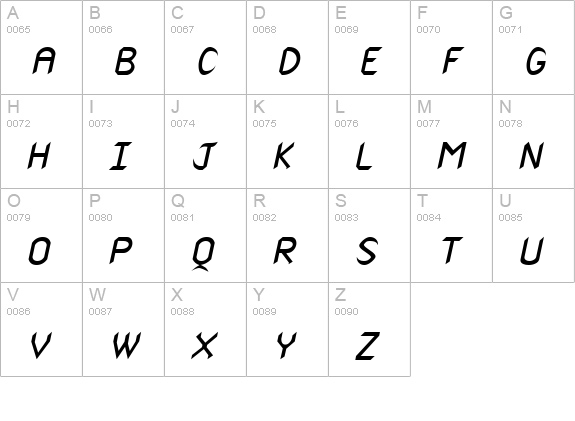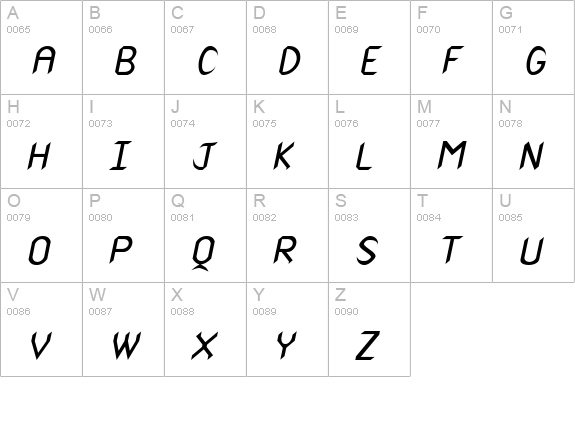
Spike Italic is a distinctive, italic variant in the Spike typeface family \xE2\x80\x94 well suited to design and typography projects.
Introducing Spike Italic, a dynamic and modern font that exudes both elegance and versatility. With its sleek and curvaceous letterforms, Spike Italic adds a touch of sophistication to any design project. Whether you're creating a stylish logo, designing an eye-catching flyer, or crafting a professional website, this font is sure to make a lasting impression. What sets Spike Italic apart is not just its stunning aesthetic, but also its incredible versatility. From bold headlines to delicate body text, this font effortlessly adapts to various design needs, making it a valuable tool for graphic designers, web developers, and creative professionals alike. But that's not all – Spike Italic is also free! Yes, you read that right. This font is freely available to download at FontsMarket.com, allowing you to unleash your creativity without breaking the bank. With just a few clicks, you can have this remarkable font at your fingertips, ready to elevate your designs to new heights. So, why wait? Embrace the boldness and charm of Spike Italic and let your imagination run wild. With its timeless appeal and the convenience of being freely accessible at FontsMarket.com, this font is a must-have for anyone seeking to make a statement with their design work. Download Spike Italic today and watch your creations come to life.